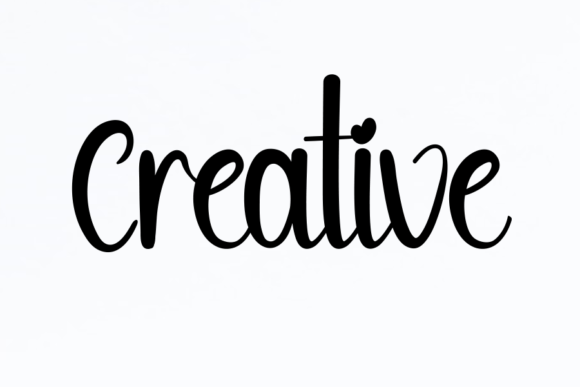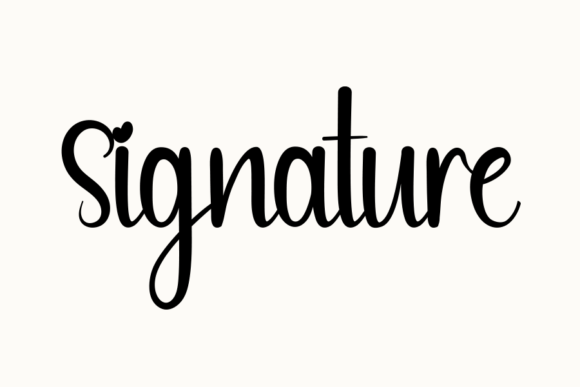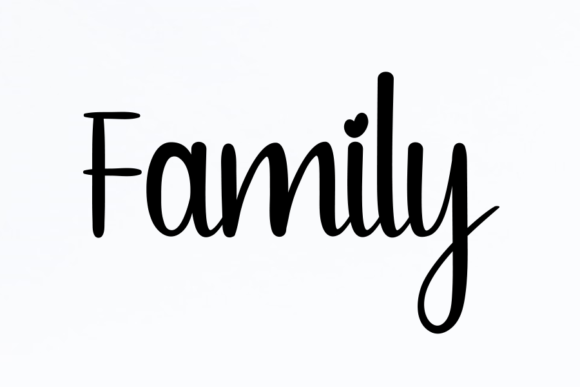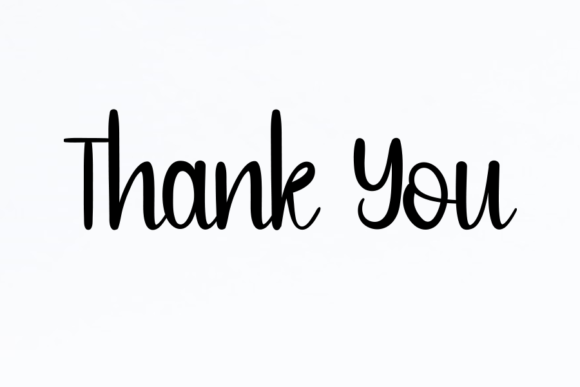
Discover the Charm of Crushing Font: A Romantic Calligraphy Typeface
Are you a designer or crafter looking for a font that adds a touch of elegance and sweetness to your projects? Look no further than Crushing Font, a beautiful calligraphy typeface that is sure to capture your heart. In this article, we’ll dive into the features and benefits of Crushing Font, and explore how it can elevate your designs to the next level.
What is Crushing Font?
Crushing Font is a romantic and sweet calligraphy typeface that is designed to bring a touch of whimsy and charm to your designs. Its characters dance along the baseline, creating a sense of movement and fluidity that is both casual and elegant. This font is perfect for designers and crafters who want to add a personal touch to their projects, whether it’s a wedding invitation, a branding campaign, or a handmade craft.
Key Features of Crushing Font
- PUA Encoded: Crushing Font is PUA (Private Use Area) encoded, which means that you can access all of the glyphs and swashes with ease. This makes it simple to use and customize the font to suit your needs.
- Romantic and Sweet: Crushing Font has a romantic and sweet feel that is perfect for designs that require a touch of elegance and sophistication.
- Casual yet Elegant: The font has a casual, yet elegant touch that makes it versatile and suitable for a wide range of design projects.
- Characters that Dance: The characters in Crushing Font dance along the baseline, creating a sense of movement and fluidity that adds visual interest to your designs.
Benefits of Using Crushing Font
So why choose Crushing Font for your design projects? Here are just a few benefits of using this beautiful calligraphy typeface:
- Adds a Personal Touch: Crushing Font adds a personal touch to your designs, making them stand out from the crowd and giving them a unique, handmade feel.
- Versatile: The font is versatile and can be used for a wide range of design projects, from wedding invitations and branding campaigns to handmade crafts and more.
- Easy to Use: Crushing Font is PUA encoded, making it easy to access all of the glyphs and swashes and customize the font to suit your needs.
- High-Quality: The font is high-quality and designed to produce crisp, clear results, even at small sizes.
Who is Crushing Font Suitable For?
Crushing Font is suitable for a wide range of designers and crafters, including:
- Graphic Designers: Graphic designers who want to add a touch of elegance and sophistication to their designs will love Crushing Font.
- Wedding Designers: Wedding designers who want to create beautiful, unique wedding invitations and stationery will adore Crushing Font.
- Crafters: Crafters who want to add a personal touch to their handmade crafts, such as scrapbooking and card making, will enjoy using Crushing Font.
- Branding Experts: Branding experts who want to create a unique and memorable brand identity will appreciate the versatility and elegance of Crushing Font.
Tips for Using Crushing Font
Here are a few tips for using Crushing Font in your design projects:
- Experiment with Swashes: Crushing Font comes with a range of swashes and glyphs that can be used to add visual interest to your designs. Experiment with different combinations to find the one that works best for your project.
- Pair with Other Fonts: Crushing Font can be paired with other fonts to create a unique and interesting contrast. Try pairing it with a bold sans-serif font for a striking effect.
- Use for Headings and Titles: Crushing Font is perfect for headings and titles, where its elegant and sophisticated feel can really shine.
In conclusion, Crushing Font is a beautiful calligraphy typeface that is sure to capture your heart. Its romantic and sweet feel, combined with its casual yet elegant touch, make it perfect for designers and crafters who want to add a personal touch to their projects. With its PUA encoding and range of glyphs and swashes, Crushing Font is easy to use and customize, making it a great choice for a wide range of design projects.